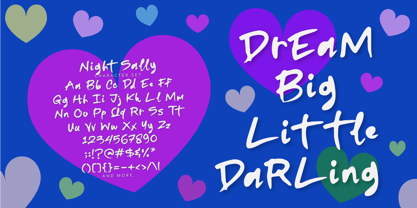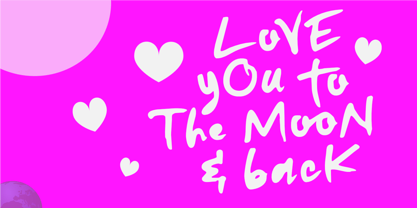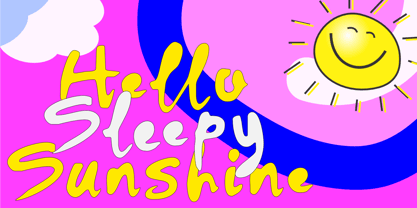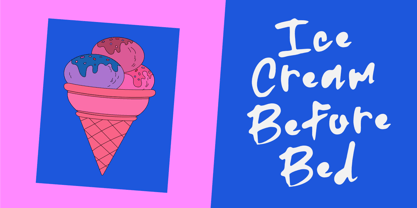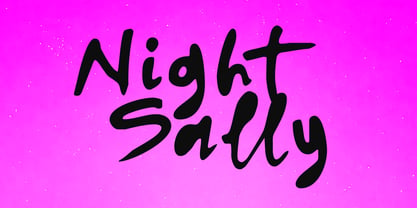
Night Sally
by Epiclinez
The Night Sally Font Family was designed by Aldy Sidik and published by Epiclinez. Night Sally contains 1 styles. More about this family
Night Sally is a fun and heartwarming script font filled with playful charm and sweet handwritten vibes. Its smooth curves and cute, flowing letters make it perfect for creating eye-catching designs that feel friendly, cozy, and full of personality. Whether you're designing logos, packaging, social media posts, invitations, posters, or branding projects, Night Sally adds a cheerful and stylish touch to every creation. This lovely script font works beautifully for cute themes, feminine branding, fashion products, café designs, and modern lifestyle projects that need a soft and joyful feel.
Designers: Aldy Sidik
Foundry: Epiclinez